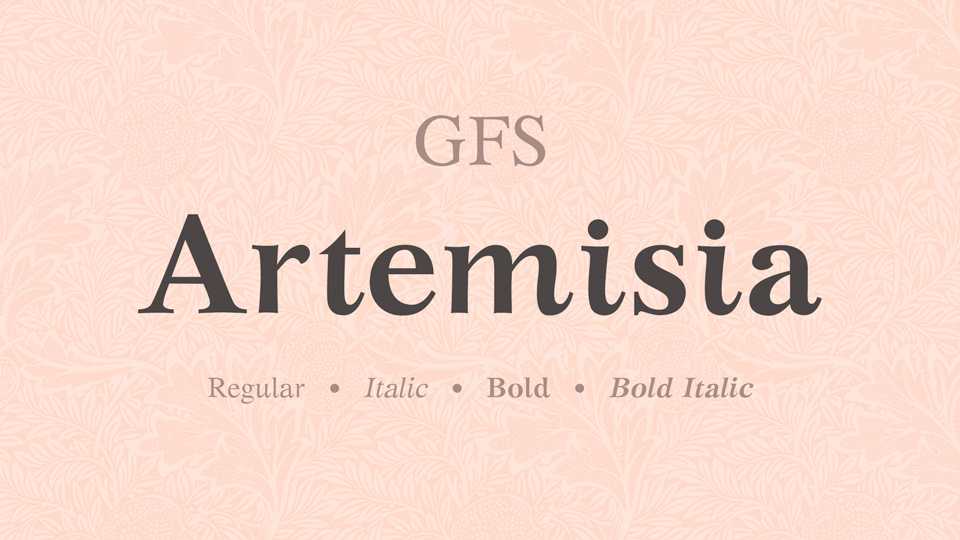
Download GFS Artemisia typeface, a slightly calligraphic book font family in three styles with Greek and Latin alphabets for a wide range of uses, equally agreeable and legible.
Designer: Greek Font Society